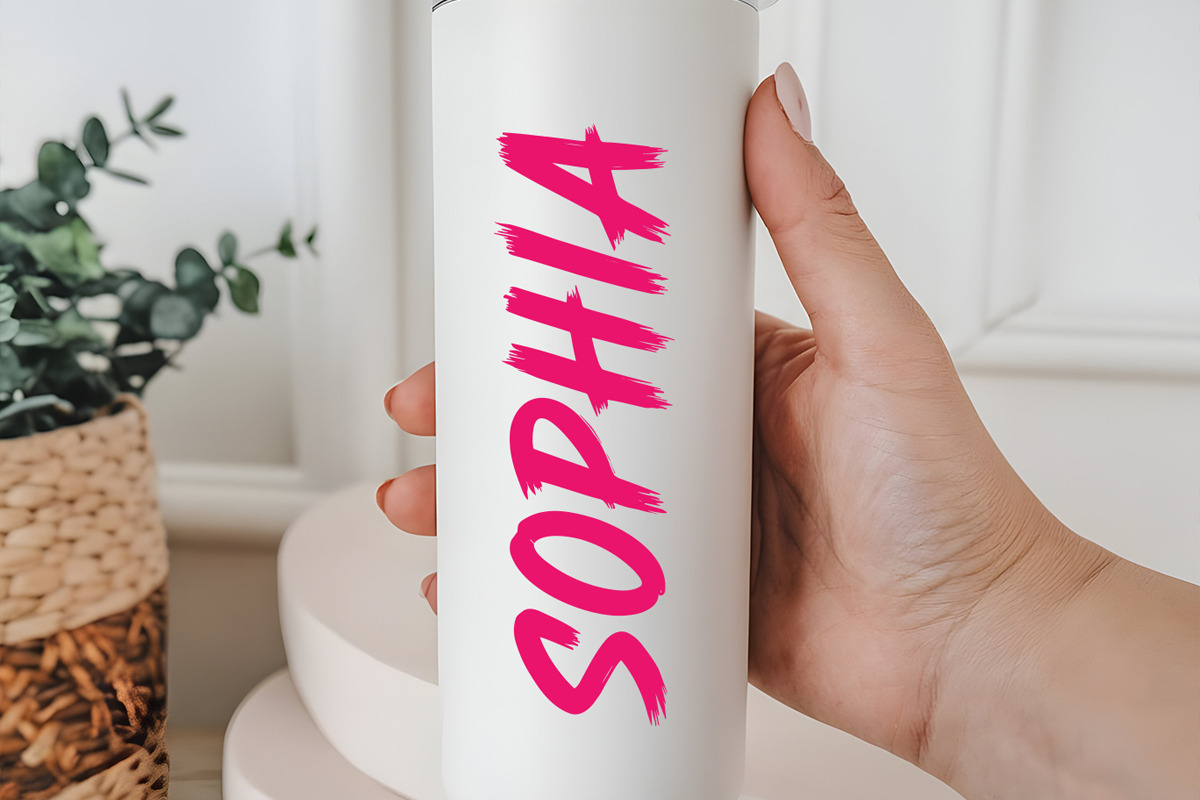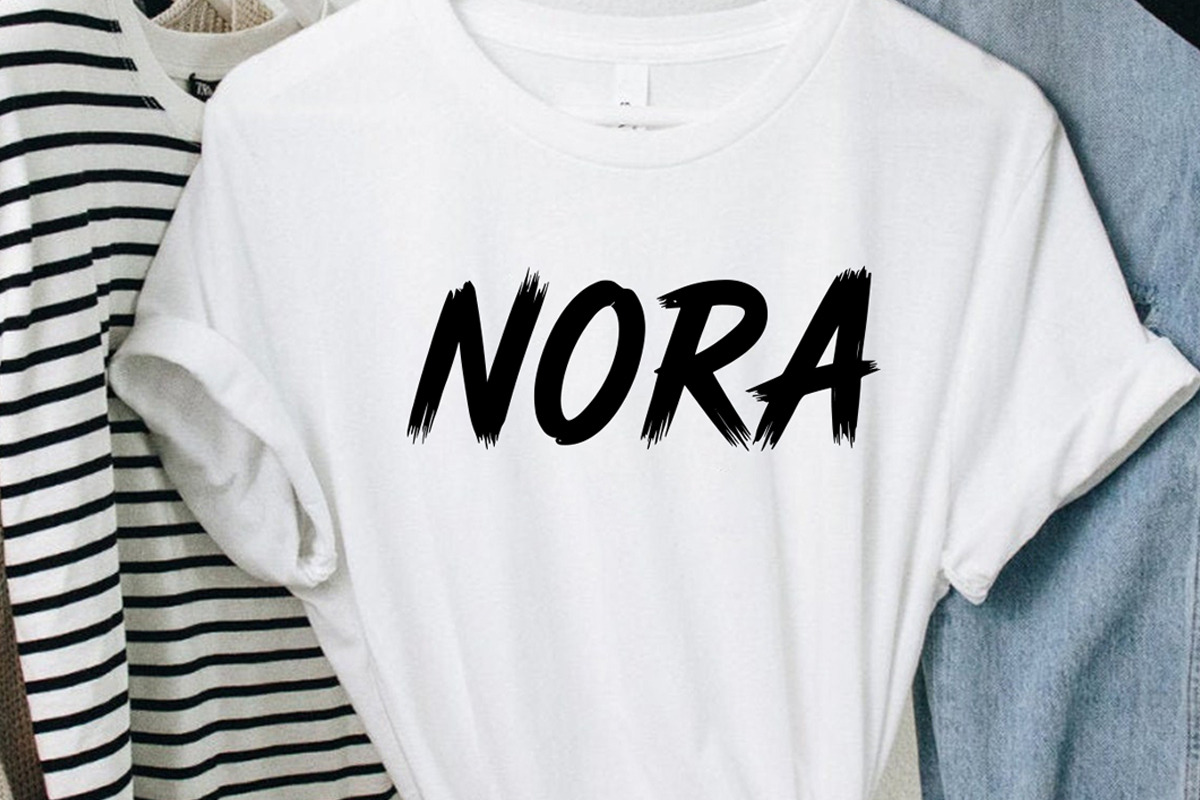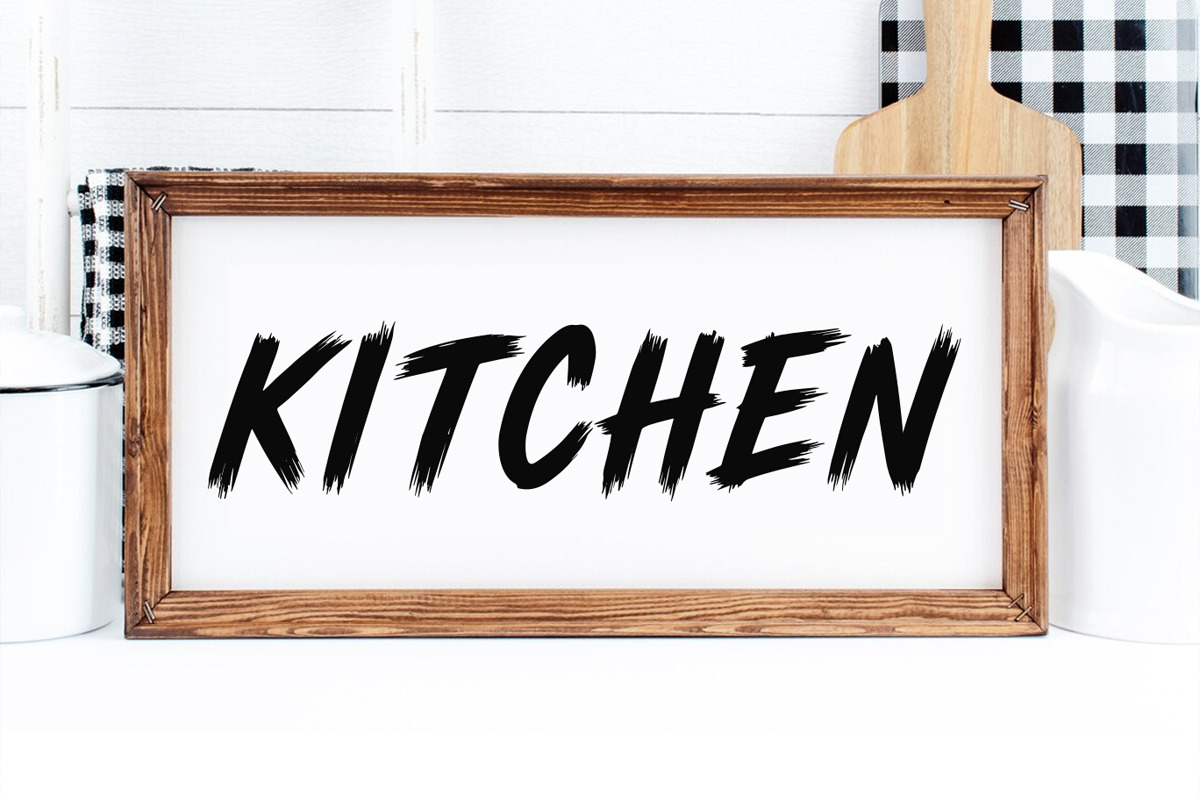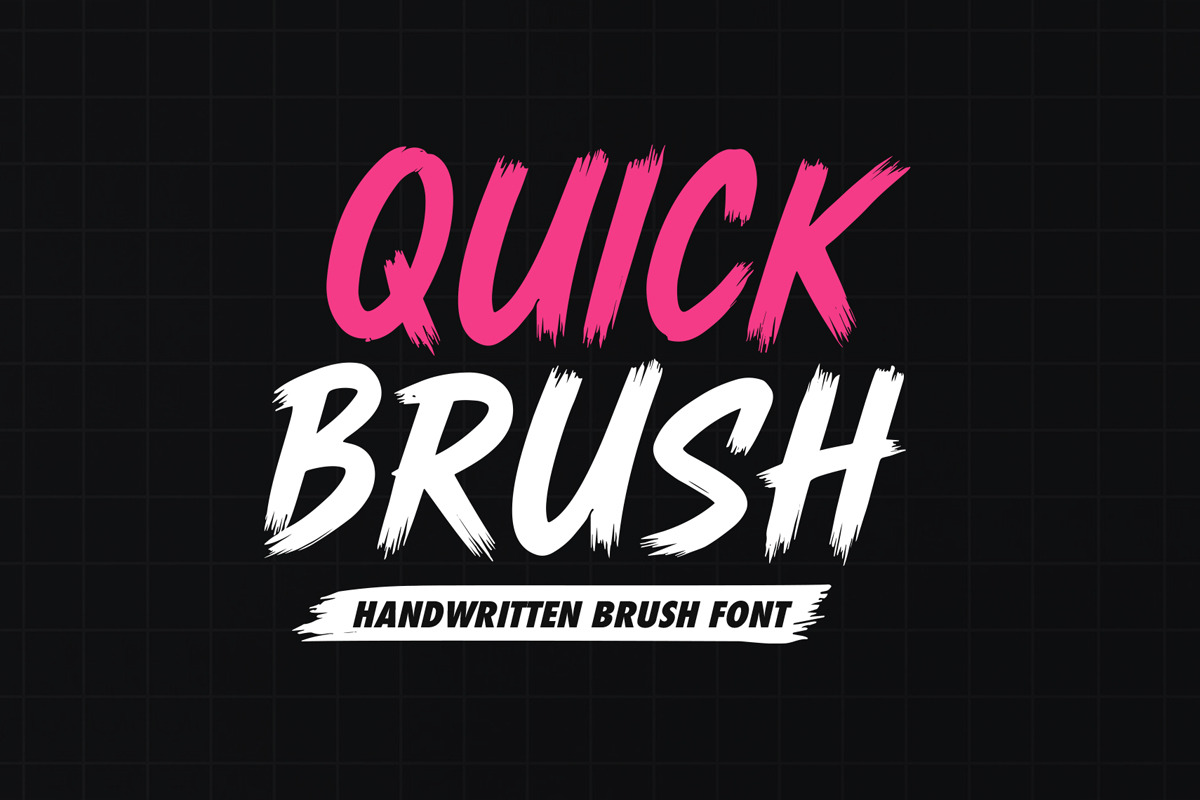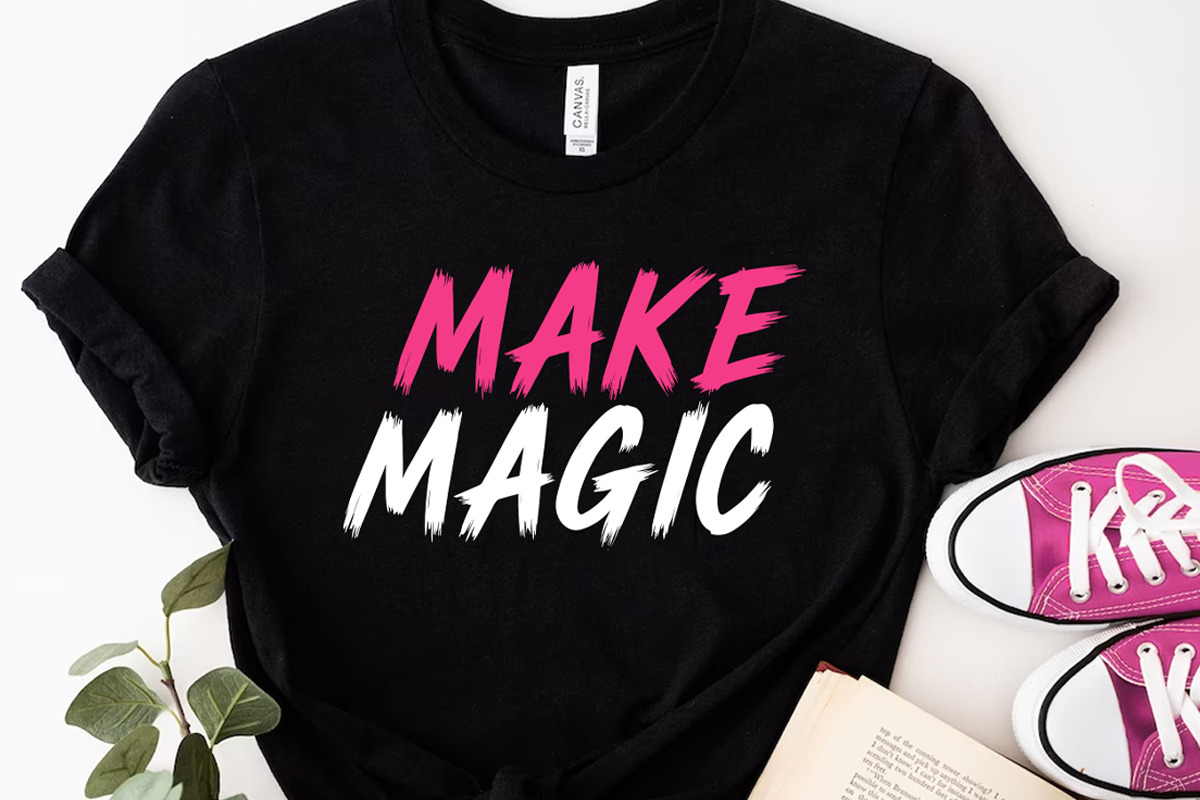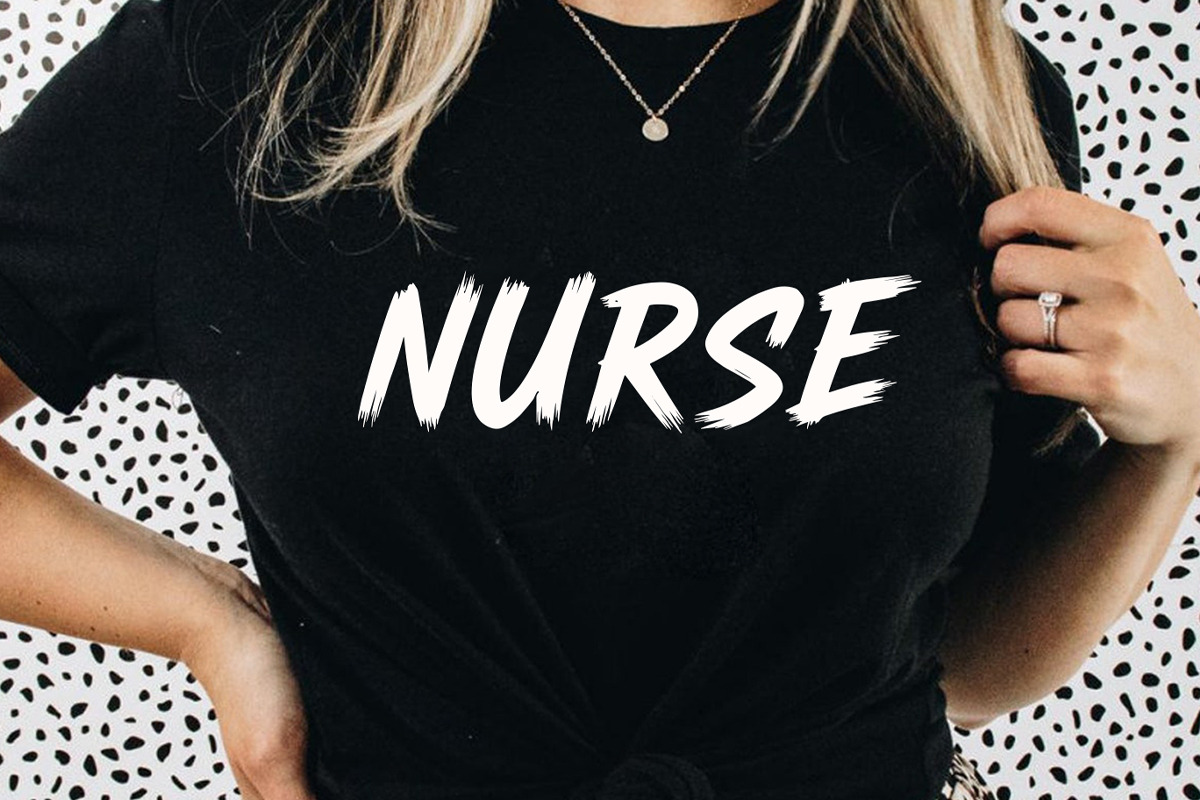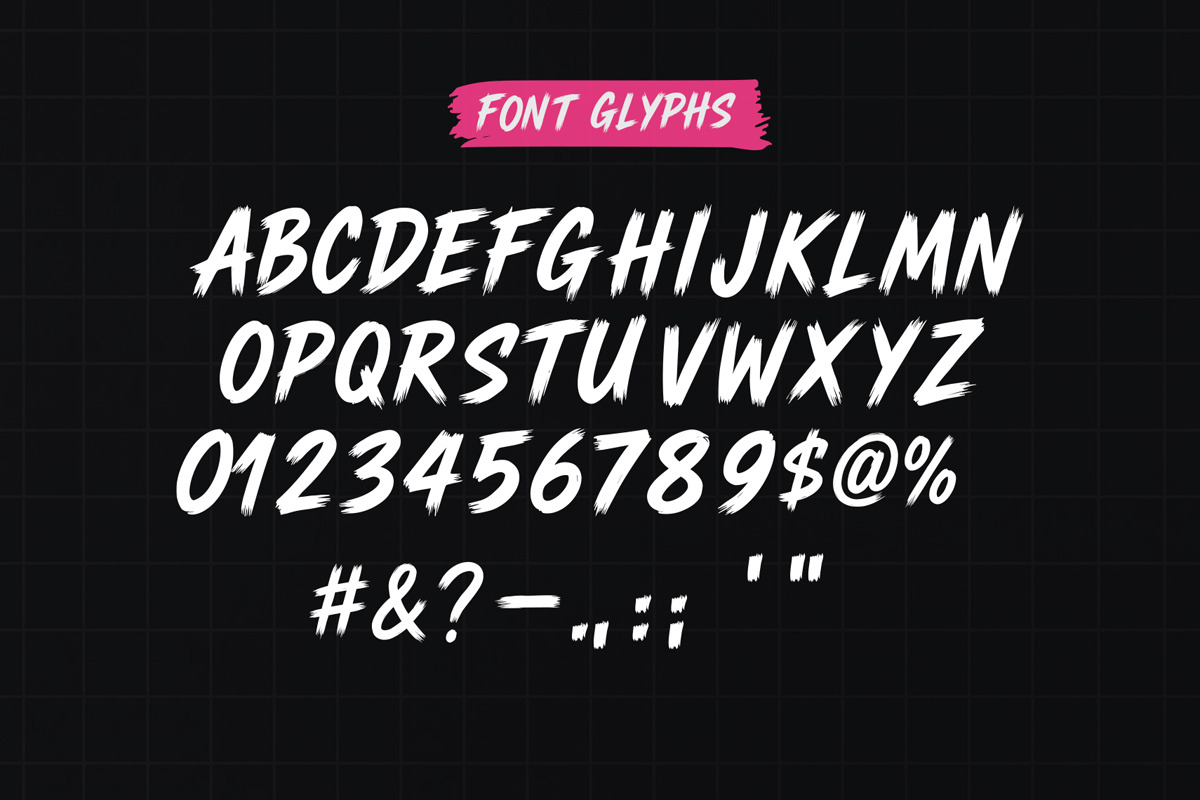
Quick Brush - Handwritten Brush Font
Quick Brush is a modern, stylish, and flowing handwritten brush font. It has beautiful and well-balanced characters, and as a result, it matches a wide pool of designs. It is the best choice for creating eye-catching logos, branding, and quotes. Add it to your most creative ideas, and notice how it makes them come alive!